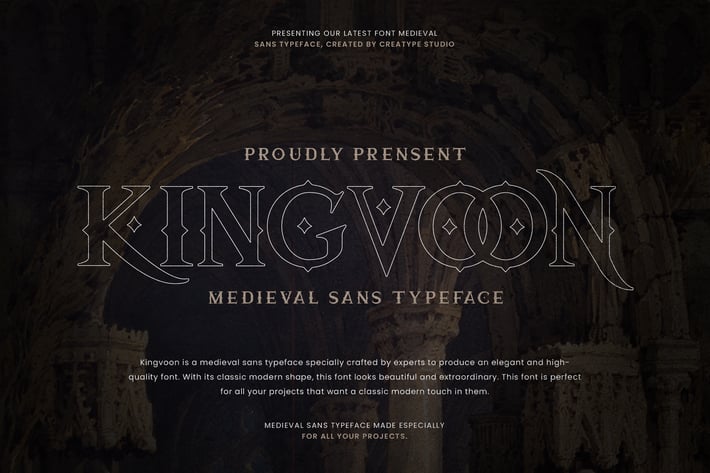
Kingvoon Medieval Business Font
RahardiCreative
Kingvoon is a retro funk typeface with a modern twist. This expertly hand-drawn retro font makes for a font that is simply perfect and a pleasure to work with. This font is inspired by the psychedelic movement from the mid-60s, making it a great font for your large projects.
Kingvoon is perfect for branding projects, logo, wedding designs, social media posts, advertisements, product packaging, product designs, label, photography, watermark, invitation, stationery and any projects that need handwriting taste.
Ton of glyphs
Ligature & Alternate